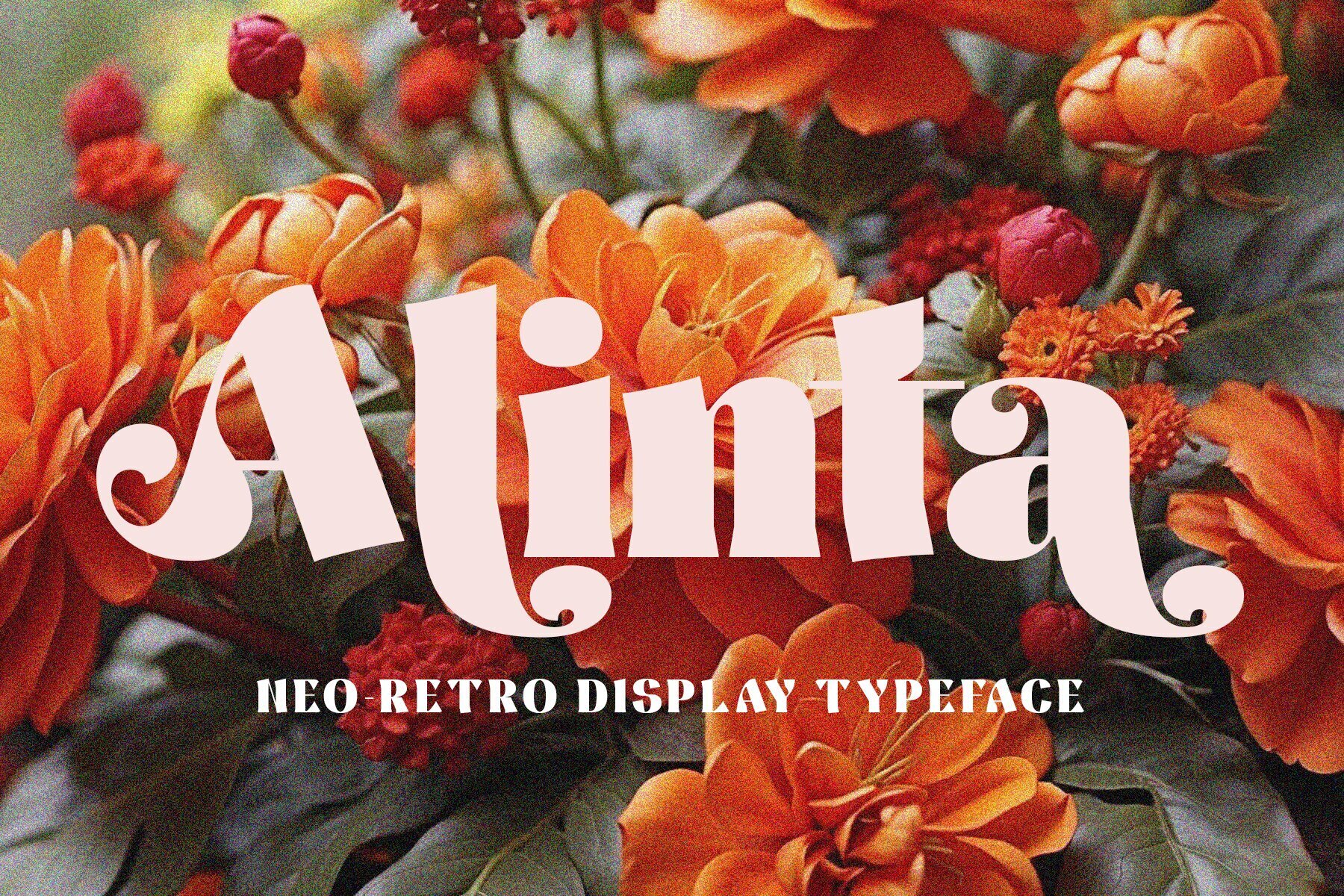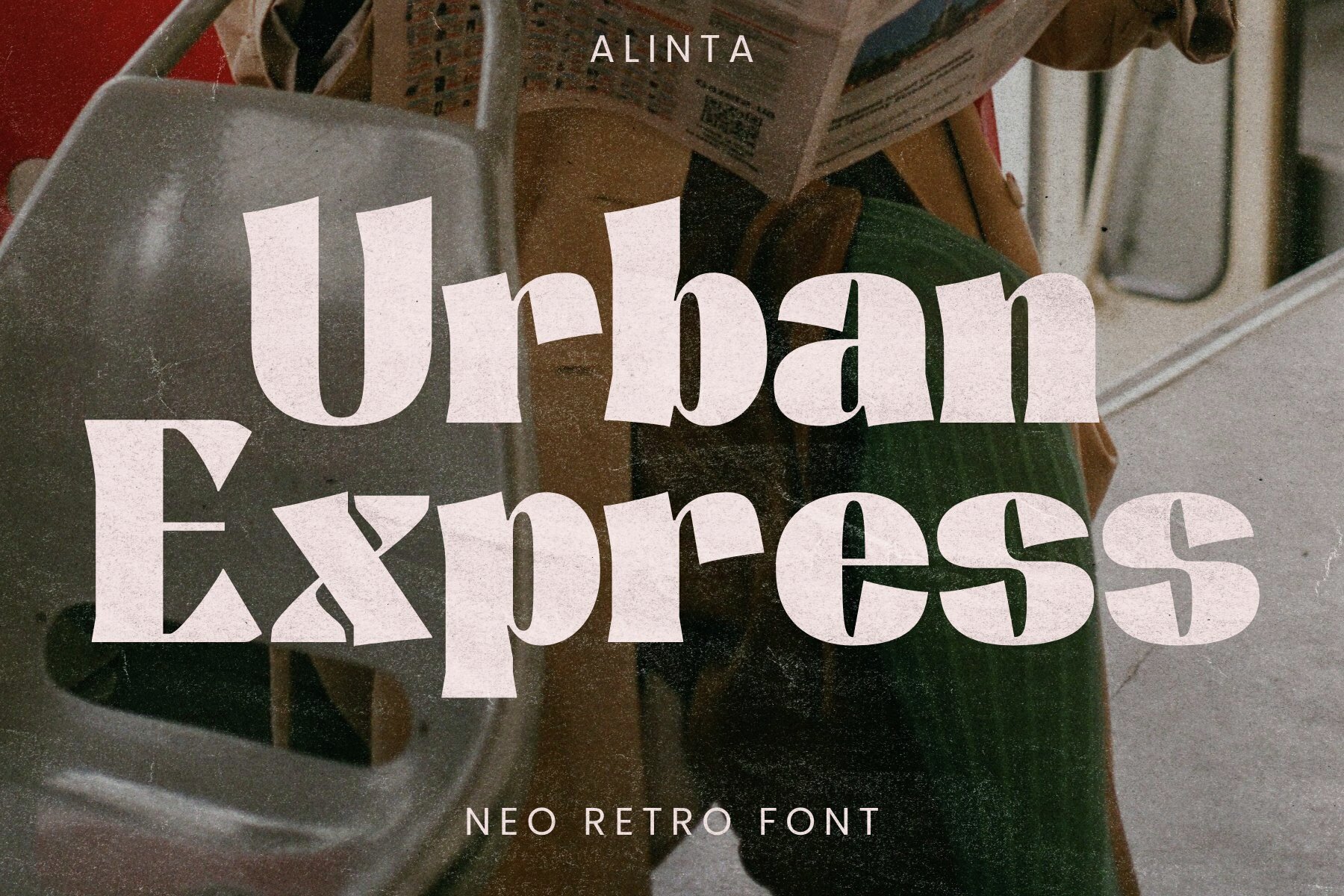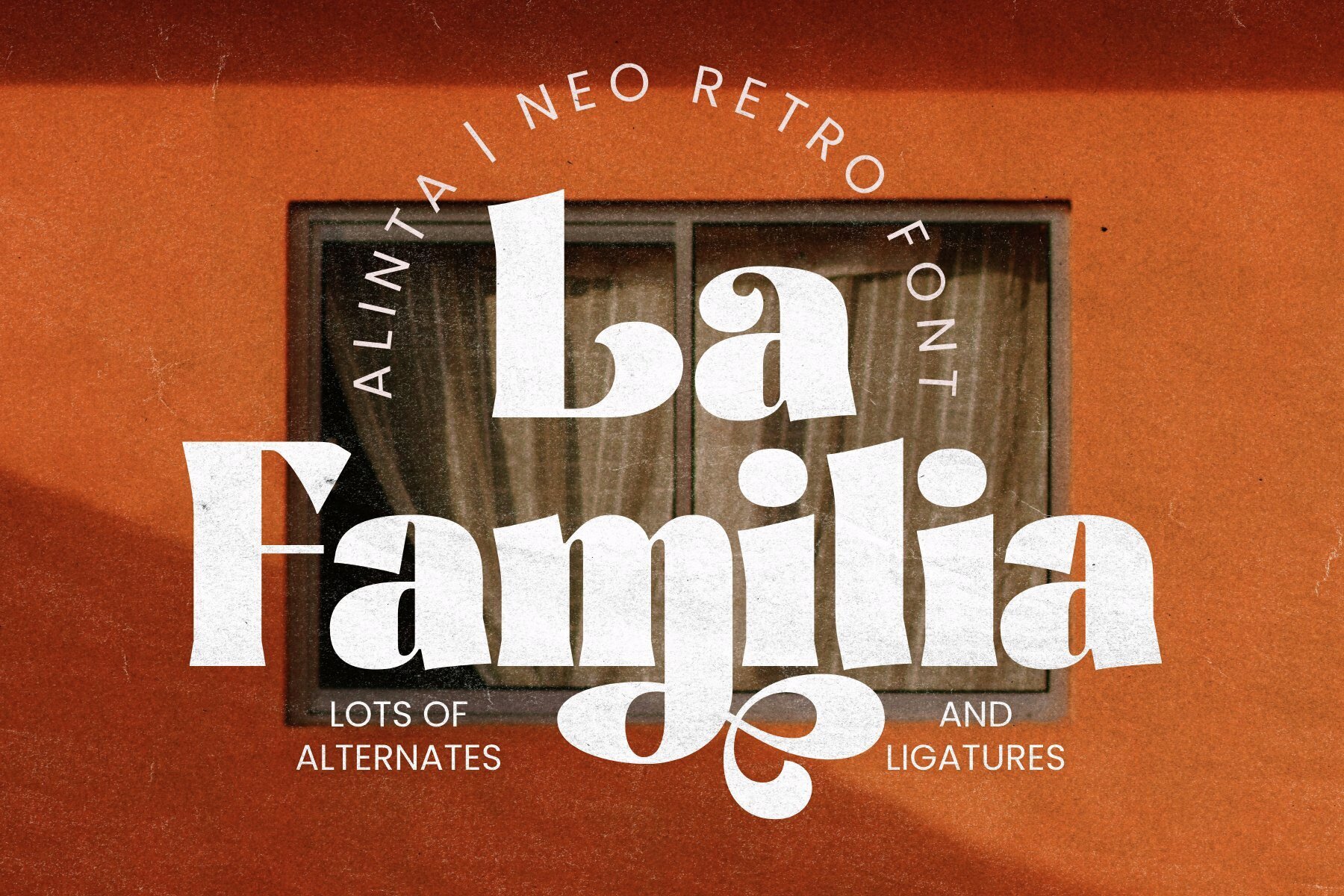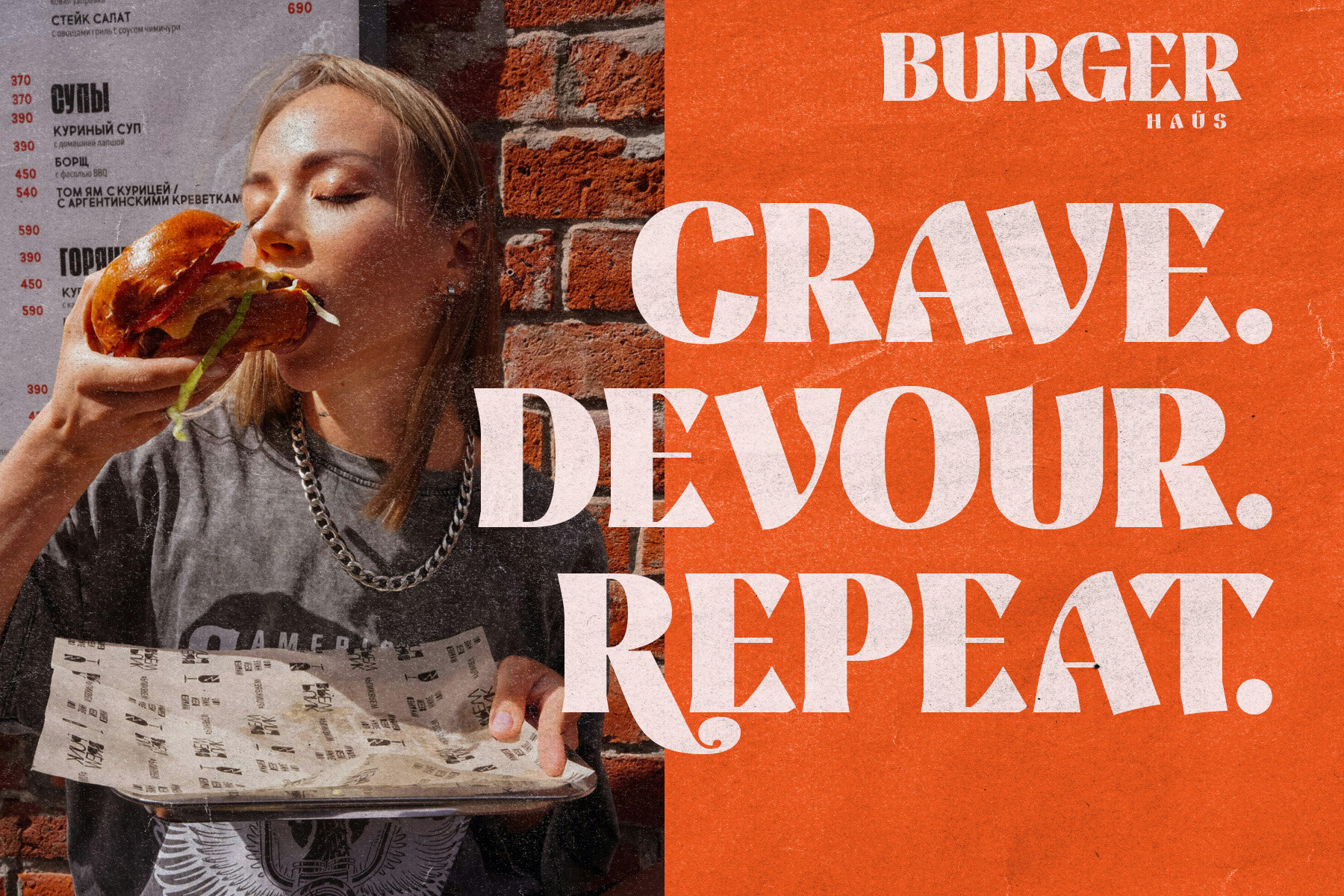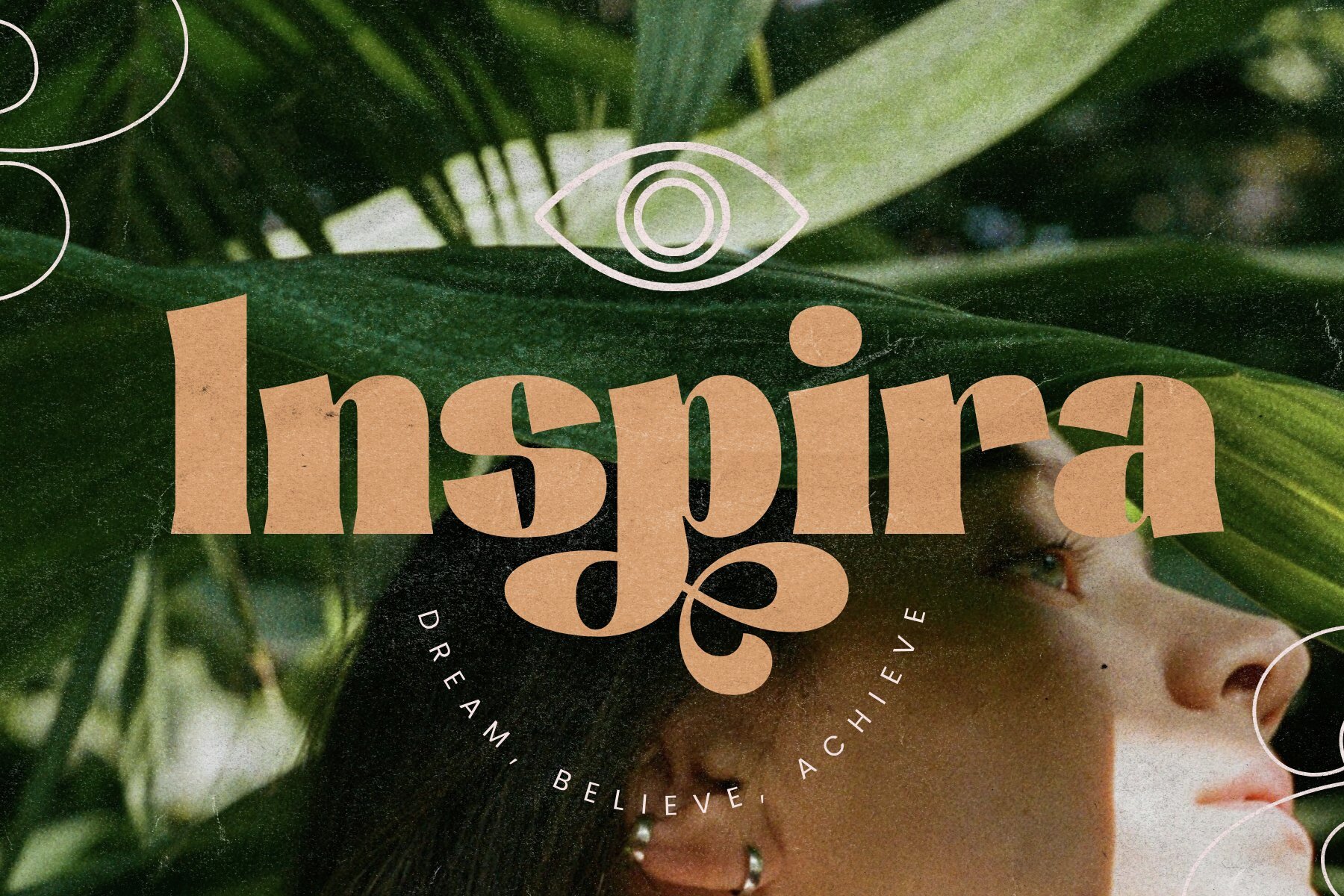
Alinta Font
Alinta Regular
Alinta is a bold neo retro display typeface that blends modern and classic aesthetics. It features a variety of creative ligatures that add a unique flair to your work. Perfect for logo designs, ad campaigns, packaging, and projects requiring a striking typeface.Alinta: A Bold Neo Retro Display Typeface